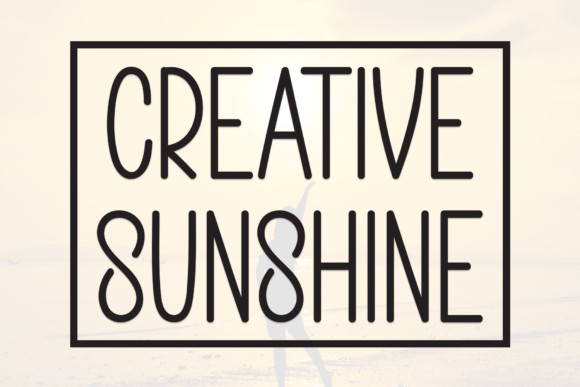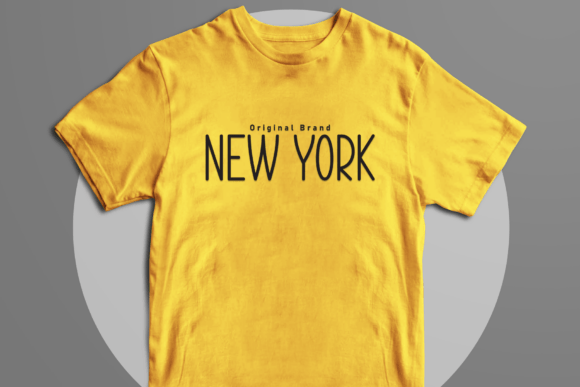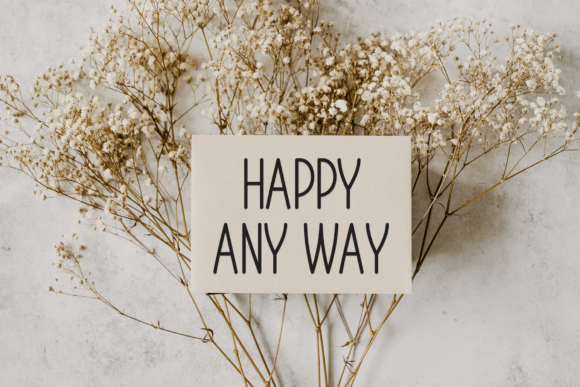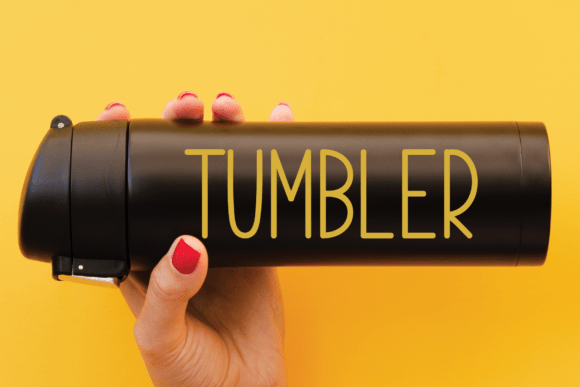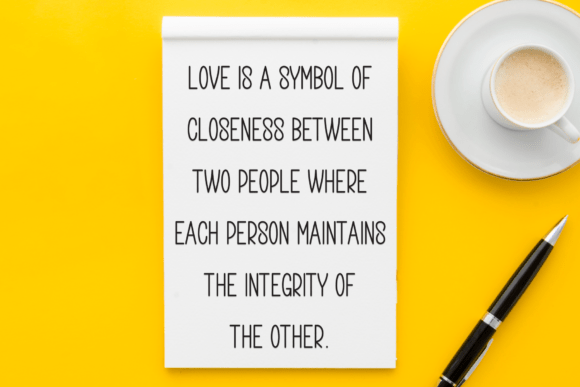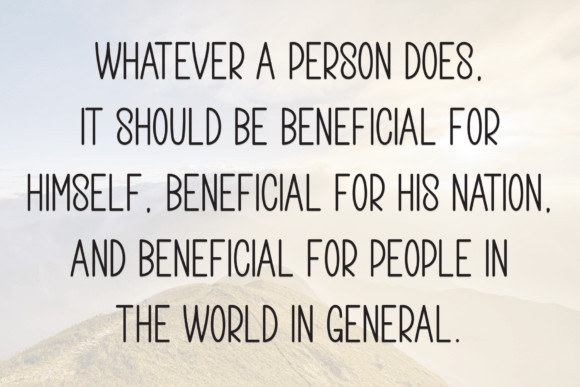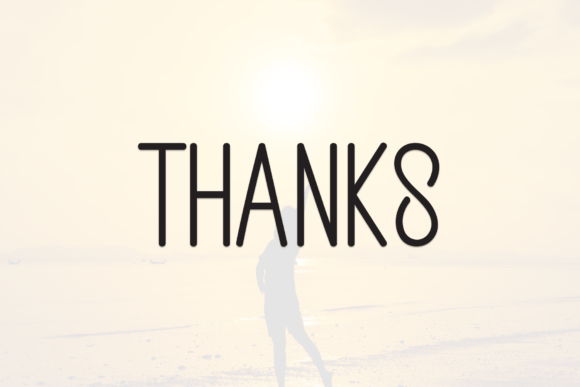
Unleashing Joy with Creative Sunshine Font
Imagine you’re brainstorming ideas for a friend’s wedding invitation, and you stumble upon the perfect phrase – ‘Love is in the air.’ As you start to write it down, your mind starts racing with visions of elegant calligraphy, colorful illustrations, and whimsical designs. That’s the moment when the right font can make all the difference. Enter the Creative Sunshine Font, a charming handwritten display font that’s as sweet as sugar and as friendly as a welcoming smile.
This delightful font is more than just a pretty face – it’s a valuable tool for designers looking to add a playful touch to their work. With its adorable and lively style, the Creative Sunshine Font effortlessly brings joy and warmth to every piece of work, making it the ideal choice for crafting wedding invitations, imaginative cards, and more.
Creative Sunshine Font Key Features
- Font Family: Creative Sunshine Font is a unique, hand-drawn sans-serif font family designed to evoke feelings of happiness and warmth.
- Character Set: Includes a comprehensive set of characters, including uppercase and lowercase letters, numbers, and punctuation marks, as well as a range of ligatures and swashes.
- Unique Characteristics: Features a distinctive, hand-drawn feel with subtle imperfections and variations in letterforms, giving it a personal and emotive touch.
Designer Review: Creative Sunshine Font
Overall, I’d say the Creative Sunshine Font is a lovely addition to any designer’s toolkit ✨. Here are a few things that really stood out to me:
- Unique yet familiar feel: The font has a distinctive personality that’s both modern and approachable.
- Great for headlines: The font’s bold, playful style makes it perfect for grabbing attention in headings and titles.
- Versatile: Creative Sunshine works well in both digital and print applications, from website headers to magazine layouts.
Of course, no font is perfect, and here are a few limitations I encountered:
- Not ideal for body text: While the font is great for headlines, it can be a bit too bold and playful for large blocks of body text.
- Some letterforms can be a bit awkward: Certain letters, like ‘k’ and ‘q’, can be a bit tricky to read, especially in smaller sizes.
- May not be suitable for formal applications: The font’s playful style may not be suitable for formal or professional contexts.
Overall, I think the Creative Sunshine Font is a great choice for designers looking to add a bit of personality to their projects ✨. Just be mindful of its limitations and use it thoughtfully.
Tips for Getting the Most Out of the Creative Sunshine Font
For optimal results, use the Creative Sunshine Font in conjunction with bright and airy colors. Avoid using it with dark or bold backgrounds, as it can get lost. Experiment with different font sizes and styles to create visual interest.
The Creative Sunshine Font is ideal for creating cheerful and uplifting designs, such as:
- Social media posts and graphics
- Wedding invitations and decorations
- Summer-themed promotions and ads